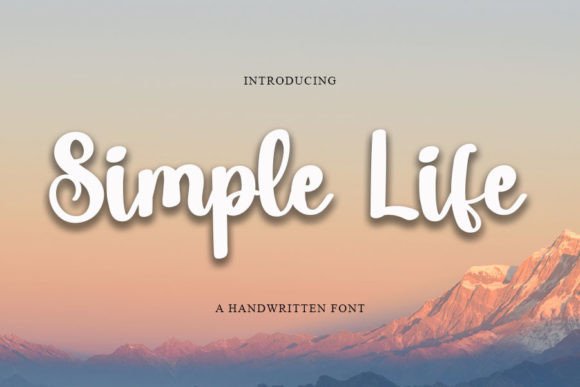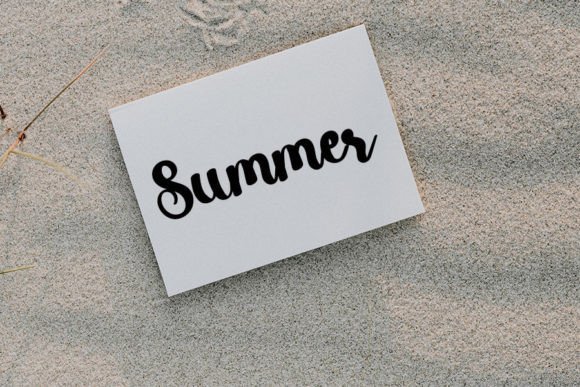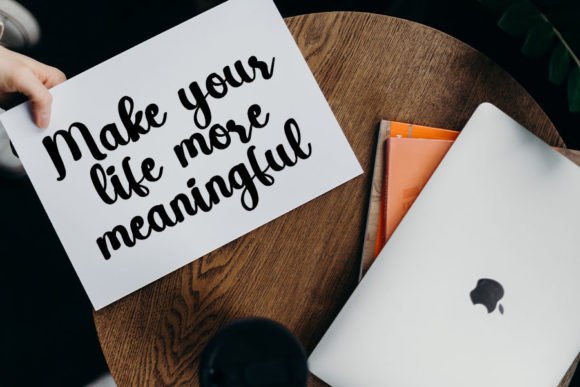
About Simple Life Font
Simple Life Font is a magical handwritten typeface designed with great care to blend elegance and a touch of quirkiness. Its clean, fresh lines and unique style make it a perfect choice for a variety of creative projects, including logos, branding, social media content, and crafty DIY designs.
Elegant with a Quirky Twist
This font offers a balanced mix of sophistication and playful charm. The clean strokes combined with subtle quirks give your projects a warm and approachable personality, helping your designs stand out with a friendly and stylish flair.
Versatile for Different Projects
Whether you are creating eye-catching logos, distinctive brand identities, or engaging social media posts, Simple Life adapts effortlessly. It suits a wide range of applications, making it a versatile tool for any designer or creative enthusiast.
Ideal for Branding and Logos
Simple Life Font can add a handcrafted, elegant touch to your brand visuals. Its timeless yet modern appeal makes it suitable for businesses that want to project a personal, creative, and professional image, helping you connect more deeply with your audience.
Perfect for Social Media and DIY Crafts
This font’s friendly style and clean design make it ideal for social media graphics, bringing warmth and approachability to your content. It also works wonderfully for DIY projects, such as personalized cards, labels, or packaging, adding a charming and handcrafted feel.
Why Choose Simple Life Font?
Simple Life Font stands out by combining elegance with a quirky edge. It is a valuable asset for those who want to infuse their creative work with a unique, handcrafted appearance while maintaining a polished and professional look.